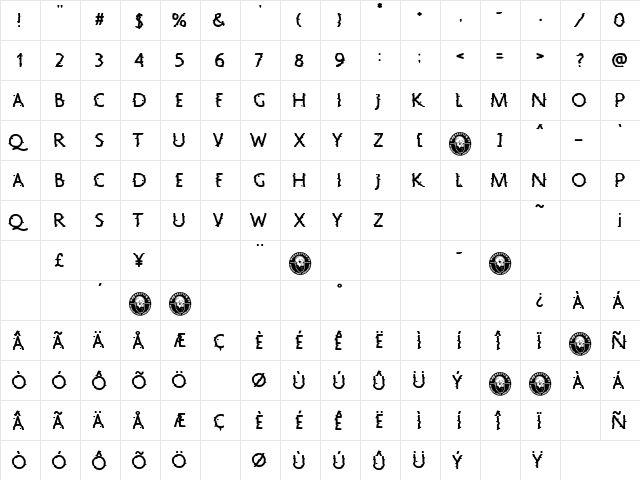
Nuevo Orden Nacional Regular
Design Context for Nuevo Orden Nacional Typeface
Nuevo Orden Nacional is a composed and adaptable typeface that performs quietly and consistently across a wide range of design contexts.